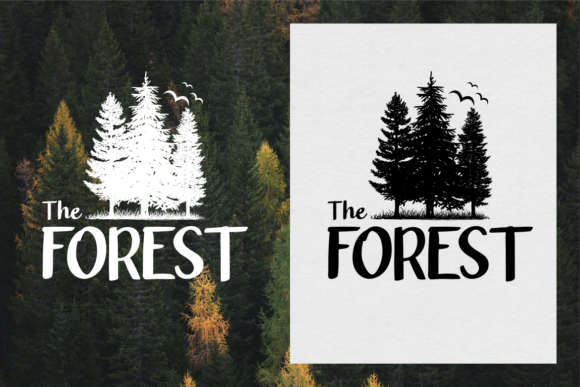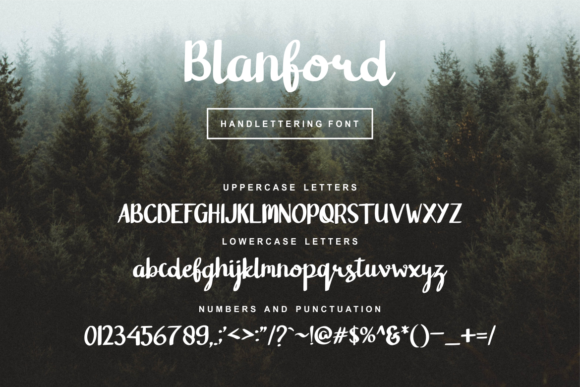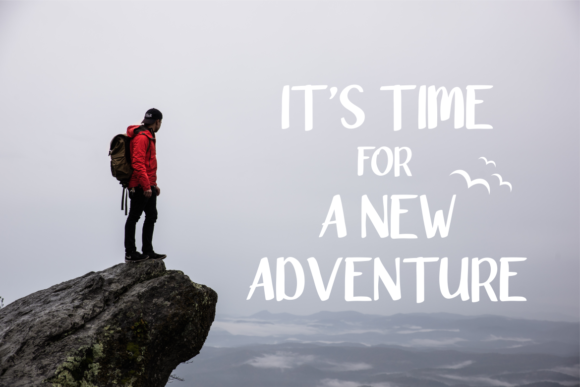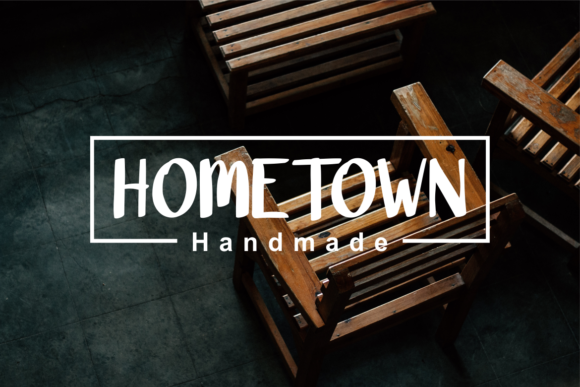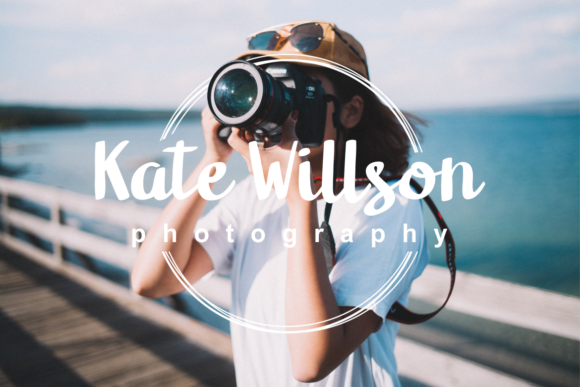
About Blanford Font
Introducing “The Blanford,” a handwritten script font designed to bring a bold and striking look to your projects. This font is more than just a typeface; it’s a design asset crafted with boldness and impressiveness, making it perfect for a wide range of designs that demand a powerful and distinctive presence.
“The Blanford” stands out with its bold and striking script, creating an impressive and impactful aesthetic. Whether you’re working on logos, clothing designs, posters, quotes, books, magazines, or any project that requires a bold and attention-grabbing typeface, this font delivers with its powerful and memorable style.
Its bold and striking look ensures that your text commands attention, making it suitable for a variety of applications. Logos designed with this font convey a sense of strength and boldness, creating a lasting and impactful brand identity. Clothing designs, posters, and other visual materials crafted with “The Blanford” carry a dynamic and impressive vibe, making them visually engaging and memorable.
The versatility of “The Blanford” makes it a great choice for a variety of creative applications, providing a bold and impressive look that stands out in any design context.
In summary, “The Blanford” is more than just a font; it’s a design companion that brings a bold and striking script style to your projects. Embrace its boldness for logos, clothing, posters, and more, and let “The Blanford” add an impressive and powerful presence to your designs.